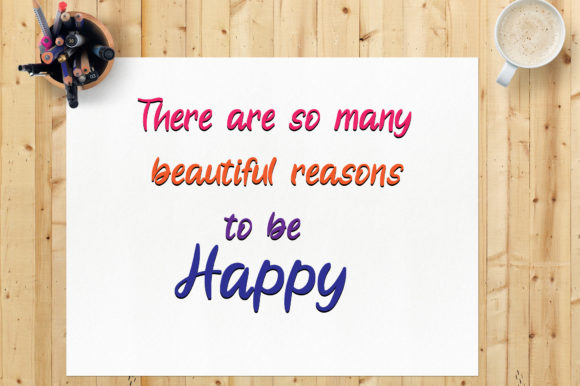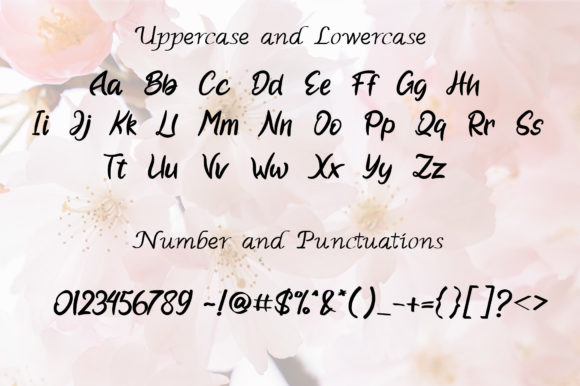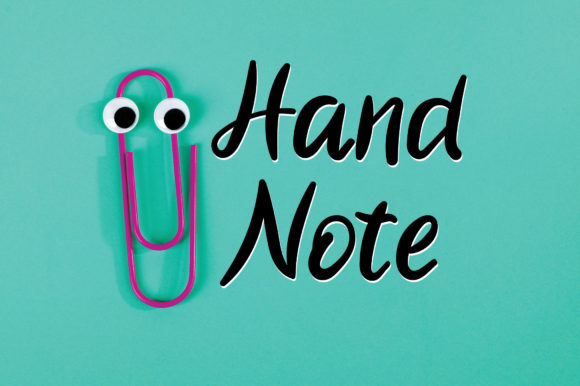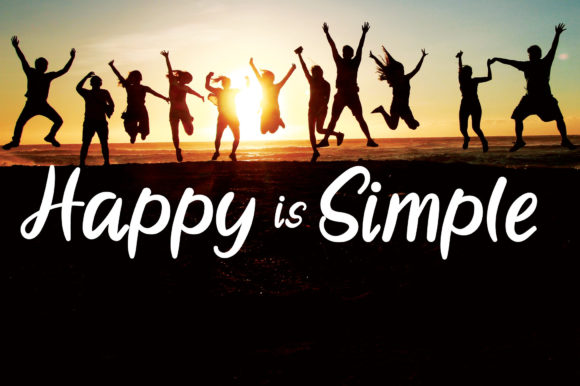
About Stay Happy Font
Stay Happy is an unique handwritten font. Whether you’re using it for crafting, digital designing, presentations, or greeting card making, it’s perfect!